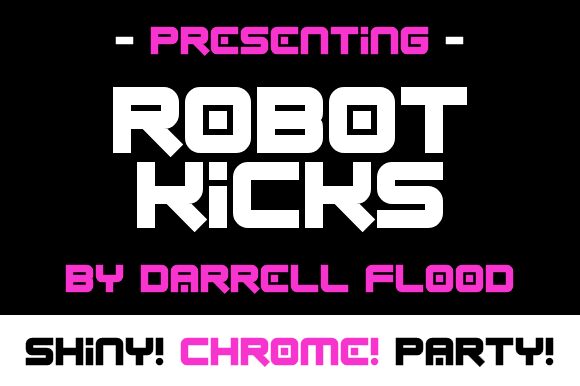
Robot Kicks Italic
Robot Kicks Italic font by Hawtpixel offers a bold, expanded design with futuristic and angular elements. Seamlessly blending tech-inspired and geometric influences, this modern display font exudes sleekness. Witness its impactful style that combines modernity with tech-inspired flair for an intriguing aesthetic approach.